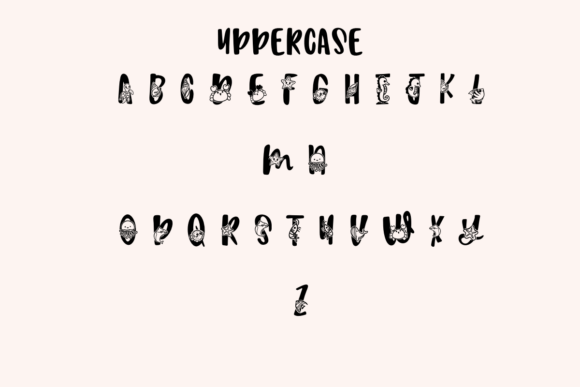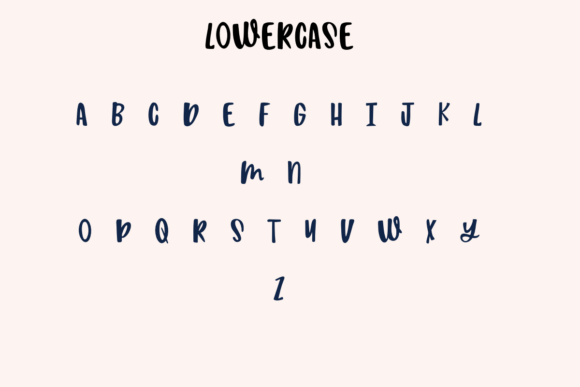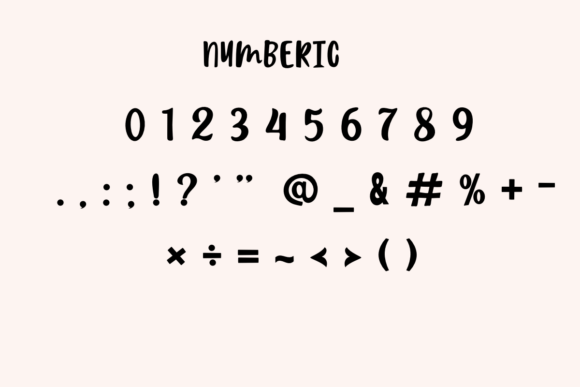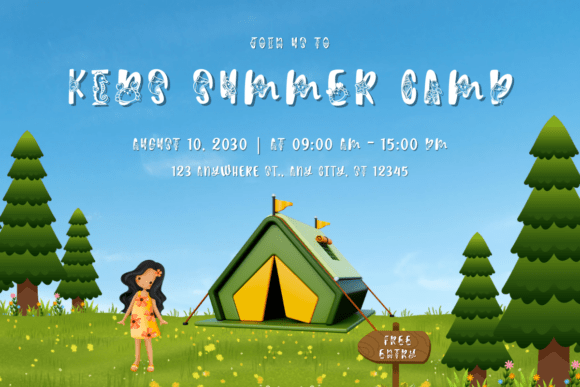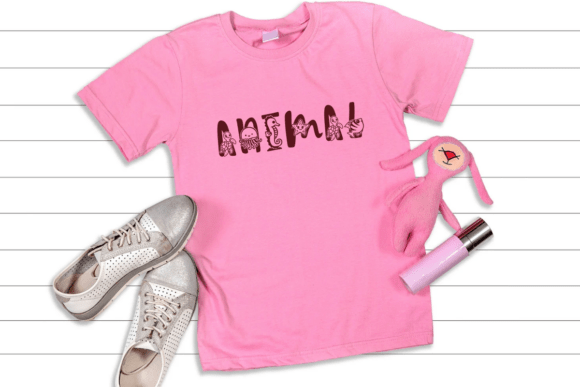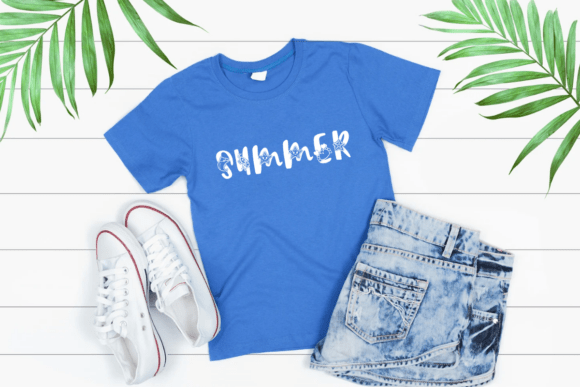
Summer Vibes in Every Line: Discovering the Animal Summer Font
Have you ever sat down with a cup of coffee, a blank notebook, and a burst of creativity? It’s that moment when the world seems to slow down, and your imagination runs wild. For designers, these moments are a treasure trove of inspiration. And what better way to capture that essence than with a font that embodies the carefree spirit of summer?
Enter the Animal Summer Font, a decorative delight that’s perfect for jotting down notes, writing a diary, or crafting greeting cards. But its uses don’t stop there – this versatile font can be used for a wide range of designs, from banners and social media posts to mugs and shirts. As a designer, the Animal Summer Font is a valuable addition to your toolkit, offering a unique and playful touch to any project.
Key Features of Animal Summer Font
- Unique Characteristics: Hand-drawn and hand-painted elements, giving the font a playful, whimsical feel and a touch of organic charm.
Animal Summer Font Review
Overall, I’m quite fond of the Animal Summer Font. It’s a playful, whimsical font that’s perfect for projects that need a bit of personality. ✨ The font’s rounded edges and casual feel make it a great choice for titles, headings, and other text that needs to stand out.
One of the things I like most about this font is its versatility. It’s suitable for a wide range of projects, from children’s books to social media graphics, and even logos. ✨ The font also has a nice range of weights, from light to bold, which makes it easy to customize to suit your needs.
- Playful, whimsical feel that’s perfect for creative projects
- Versatile and suitable for a wide range of projects
- Nice range of weights for easy customization
- May not be suitable for formal or professional projects
- Some letters may be difficult to read in certain sizes or contexts
- Lack of italic or oblique styles may limit its use in certain situations
Overall, I’d recommend the Animal Summer Font to designers who are looking for a fun, creative font to add some personality to their projects. Just be aware of its limitations and use it in contexts where it will shine. ⚠️
Here are some tips to get the most out of the Animal Summer Font:
- Use it for summer-themed designs, such as beach or pool party invitations.
- Combine it with bright and bold colors to create a fun and playful atmosphere.
- Use it for titles or headings to add a touch of whimsy and personality.
The Animal Summer Font is perfect for:
- Summer-themed designs, such as beach or pool party invitations.
- Children’s party decorations and invitations.
- Outdoor and adventure-themed designs, such as hiking or camping invitations.